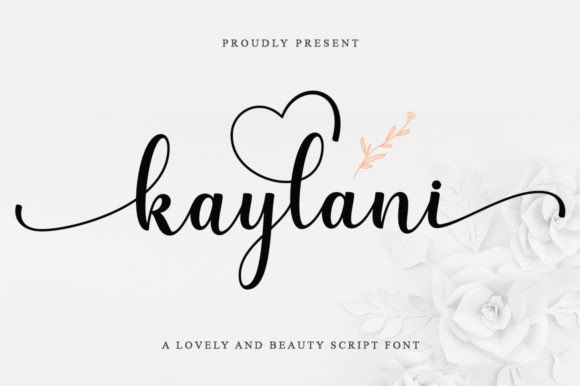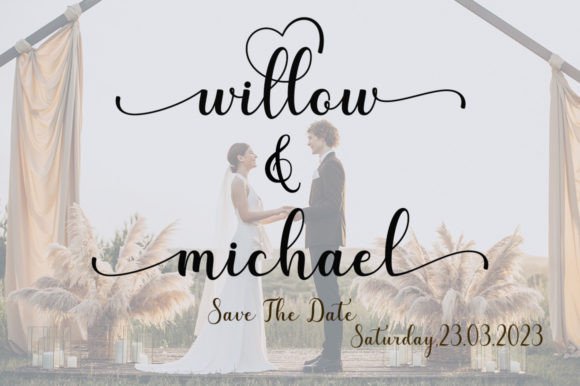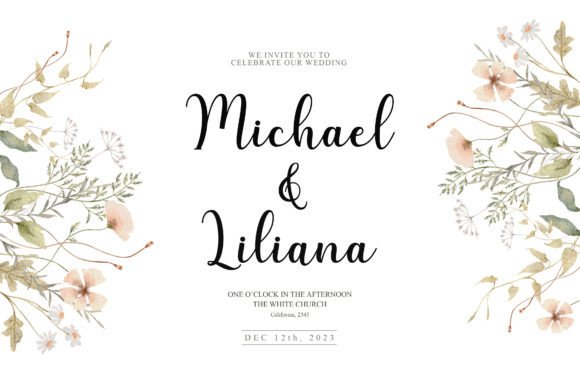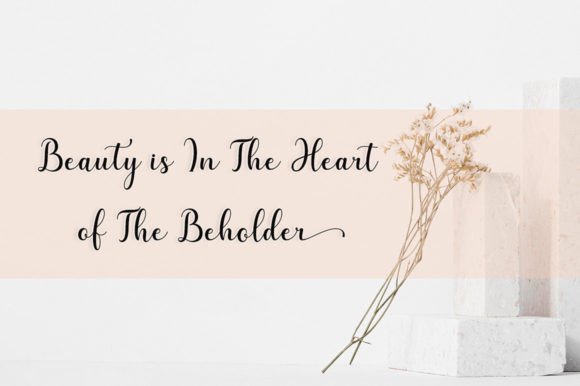
Kaylani Font: Elegant Handwritten Script for Wedding & Logo Design
About the Kaylani Font
Experience the unique personality of Kaylani Font, a font designed for impact. Kaylani is a delicate, elegant, and flowing handwritten font perfect for your favorite projects. Fall in love with its incredibly distinct and timeless style, and use it to create spectacular designs!
Kaylani’s elegant, flowing forms are ideally suited for projects requiring a touch of refined femininity. It excels in headlines, short text blocks on invitations or cards, and branding elements like logos for boutiques or beauty brands. Avoid using it for large bodies of text or UI elements; its delicate strokes would prove difficult to read in extended paragraphs.
Consider pairing Kaylani with a clean sans-serif like Lato for a modern contrast, or a classic serif like Garamond for a more timeless feel. A geometric sans-serif such as Montserrat could also provide a strong, structured counterpoint to its fluid script style.
Its overall personality is sophisticated yet approachable, lending itself to brands that value both style and a friendly, personal touch.